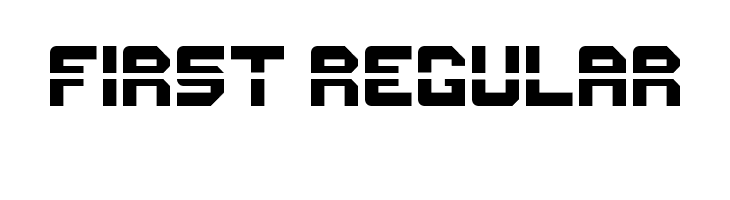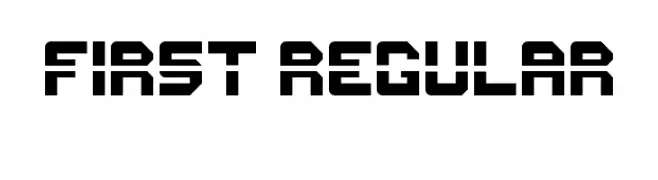
A bold, geometric font with a pixelated, retro gaming aesthetic.
A bold, pixelated font with a retro digital aesthetic.
A bold, geometric font with a futuristic and industrial style.
A modern, geometric font with clean lines and a minimalist aesthetic.